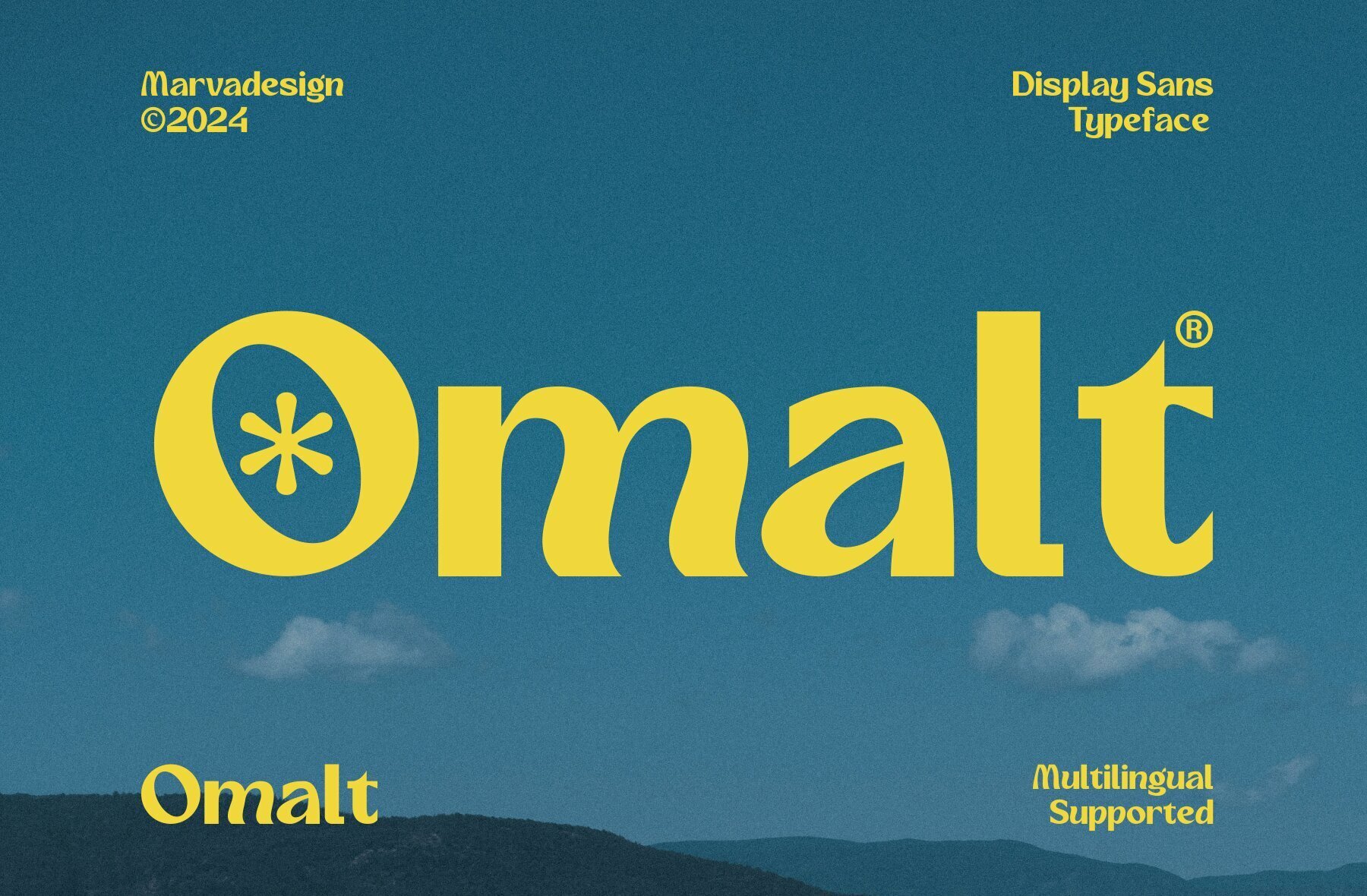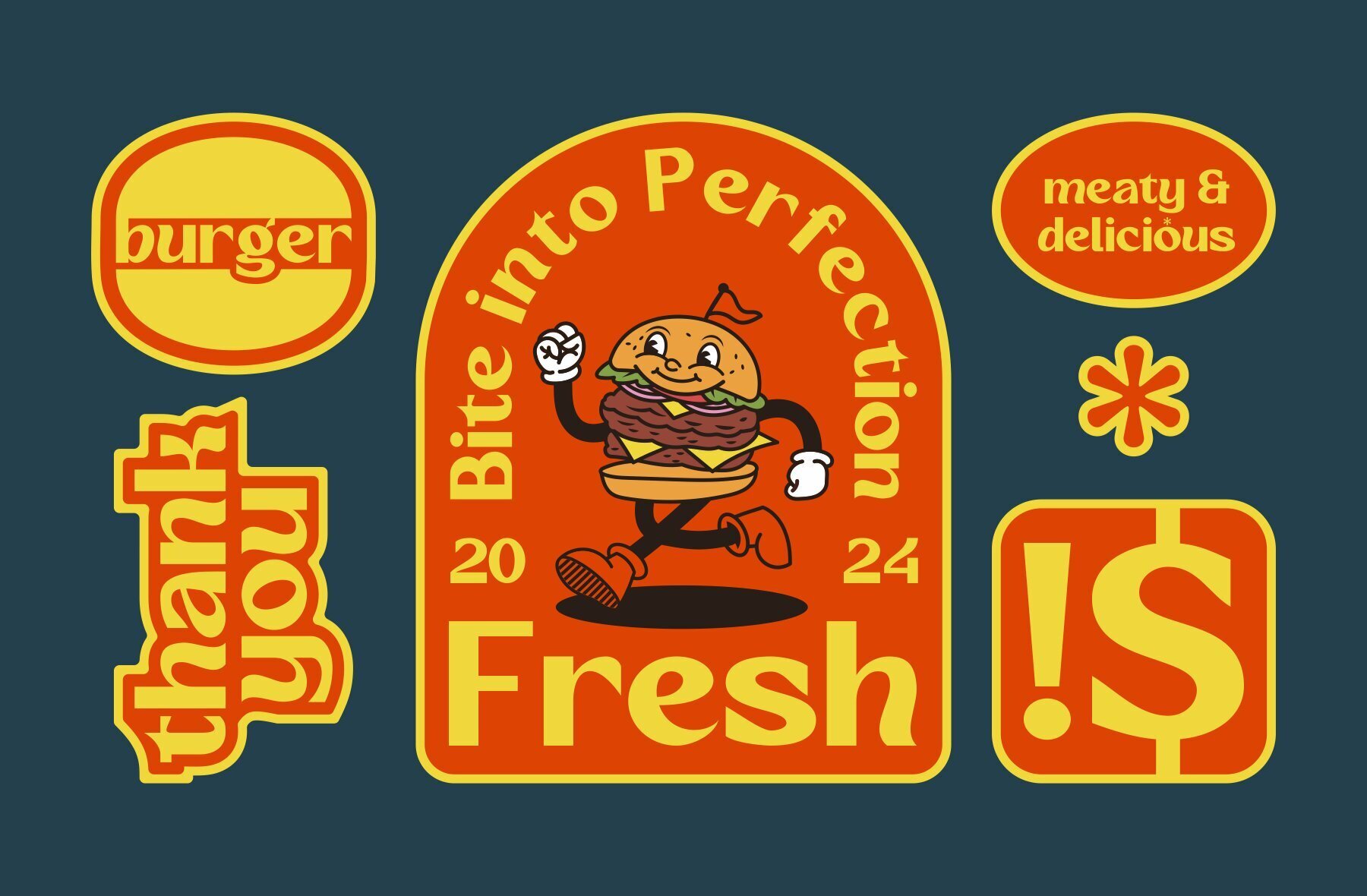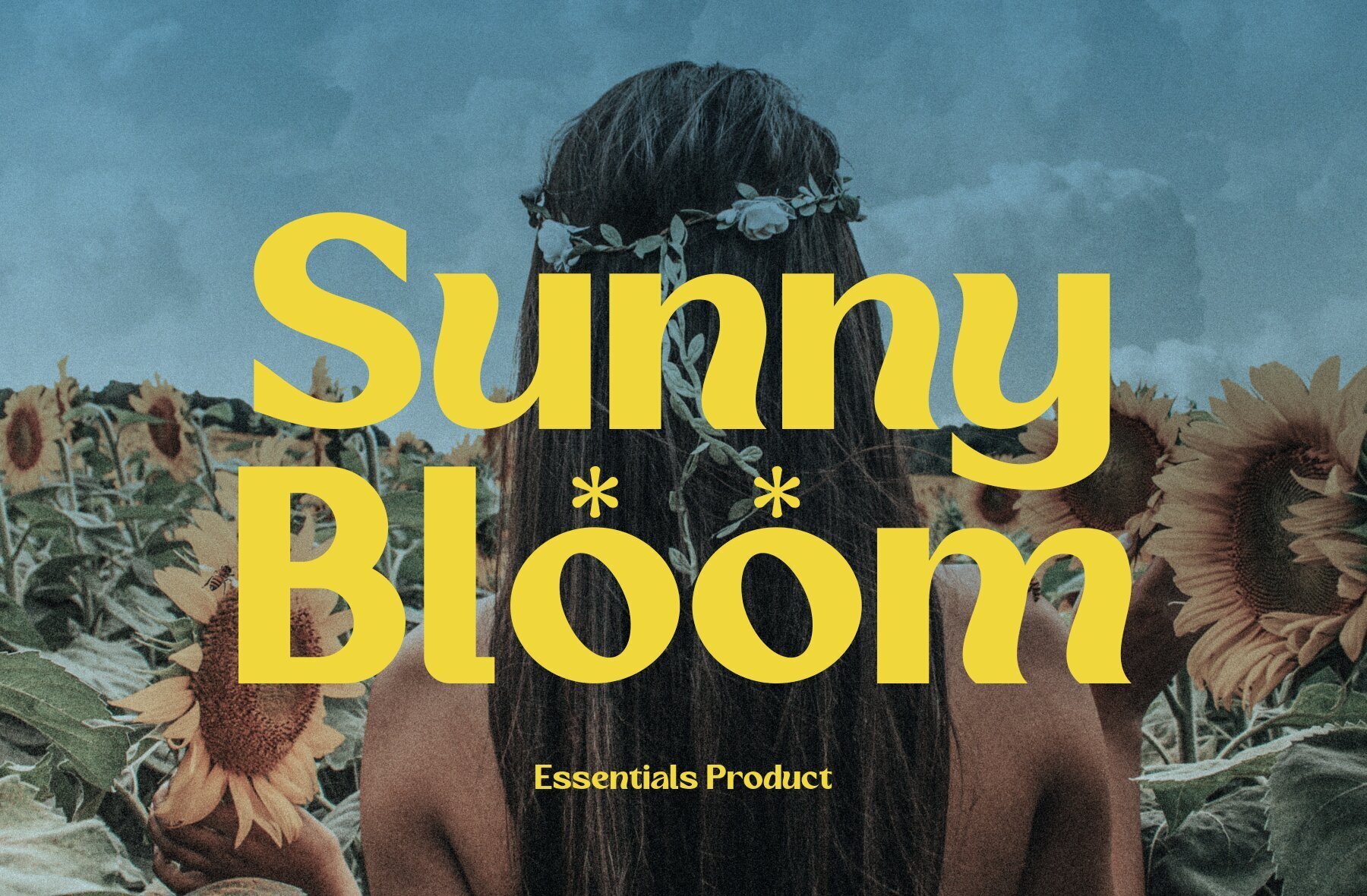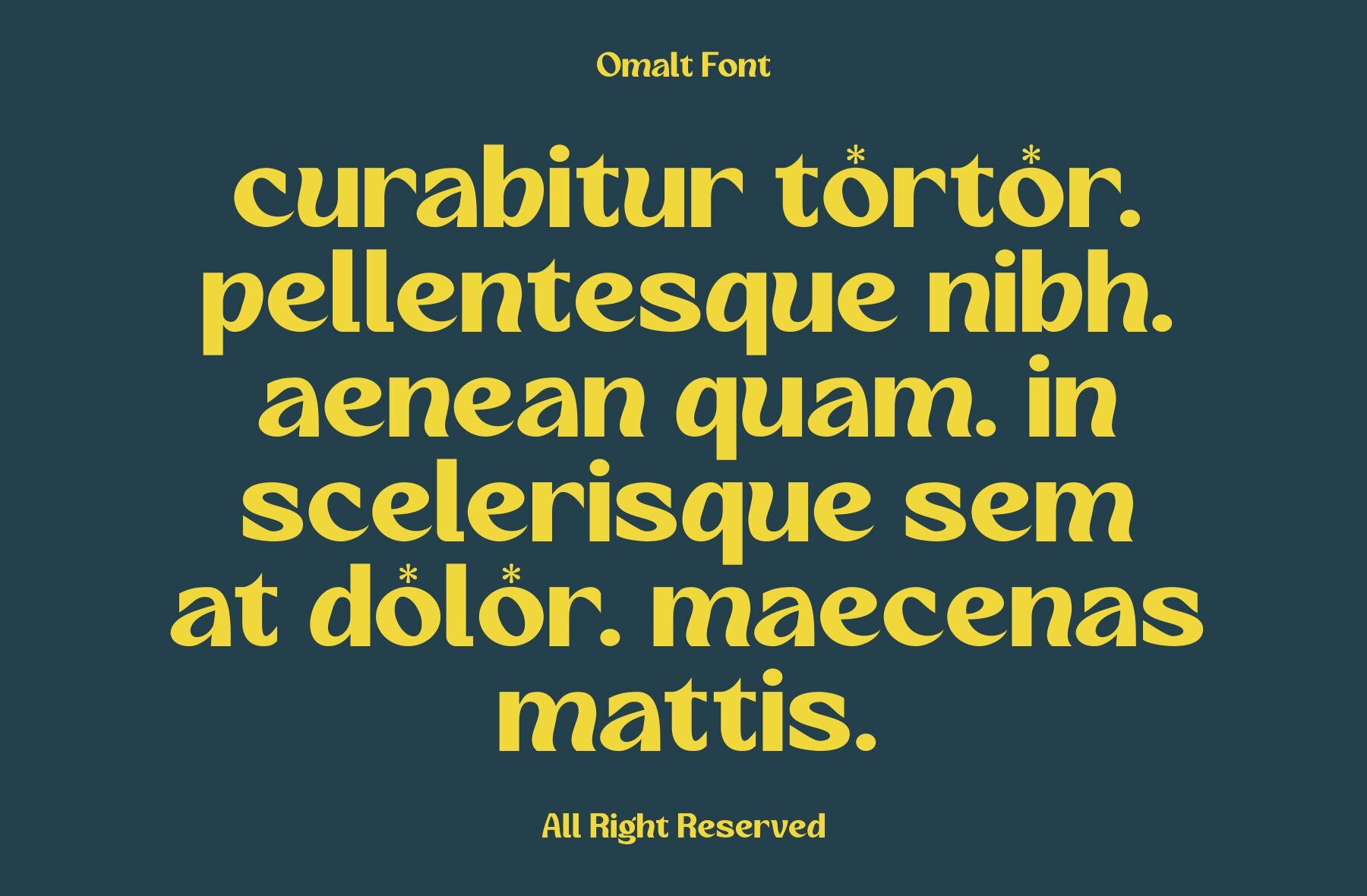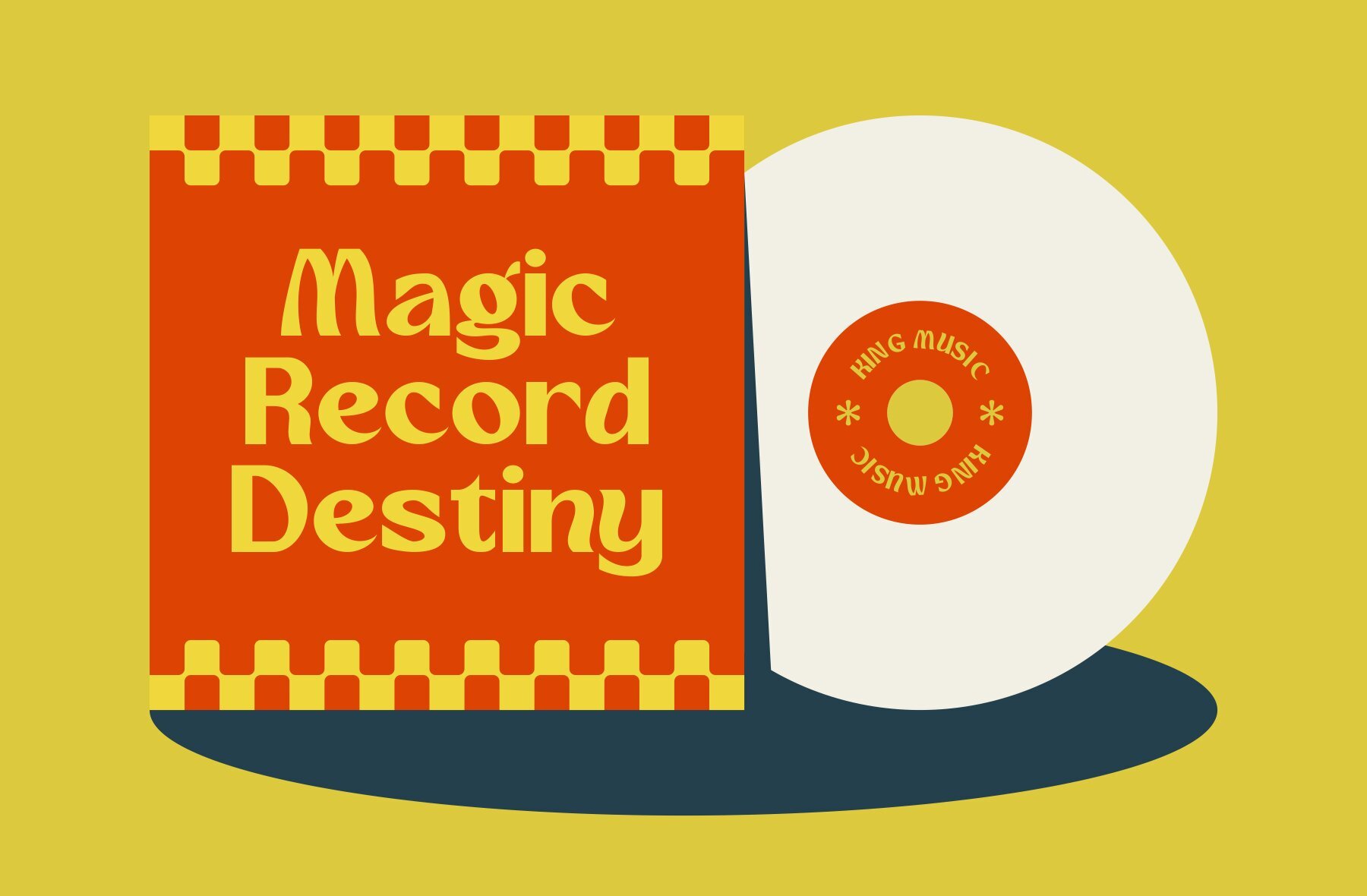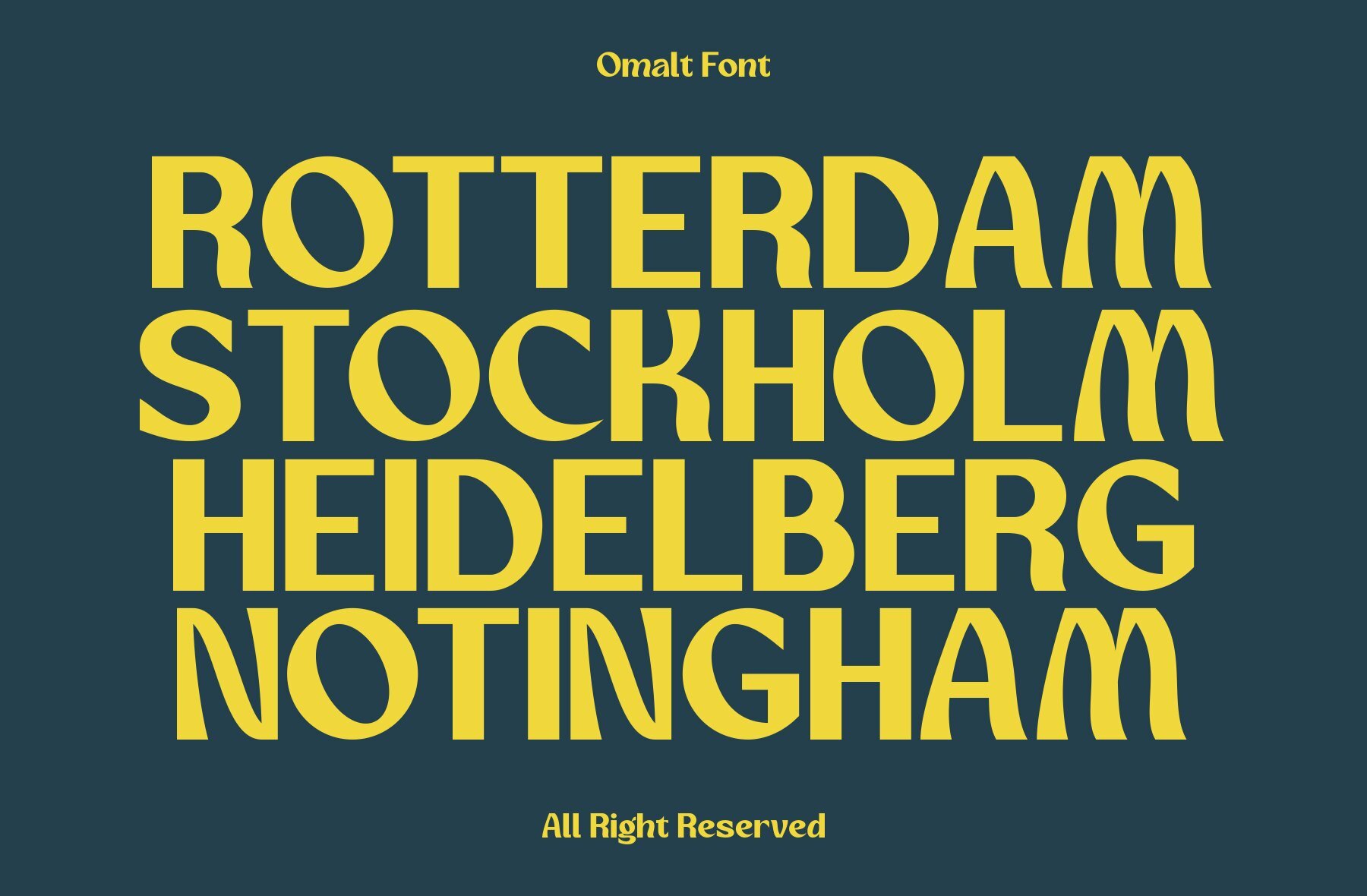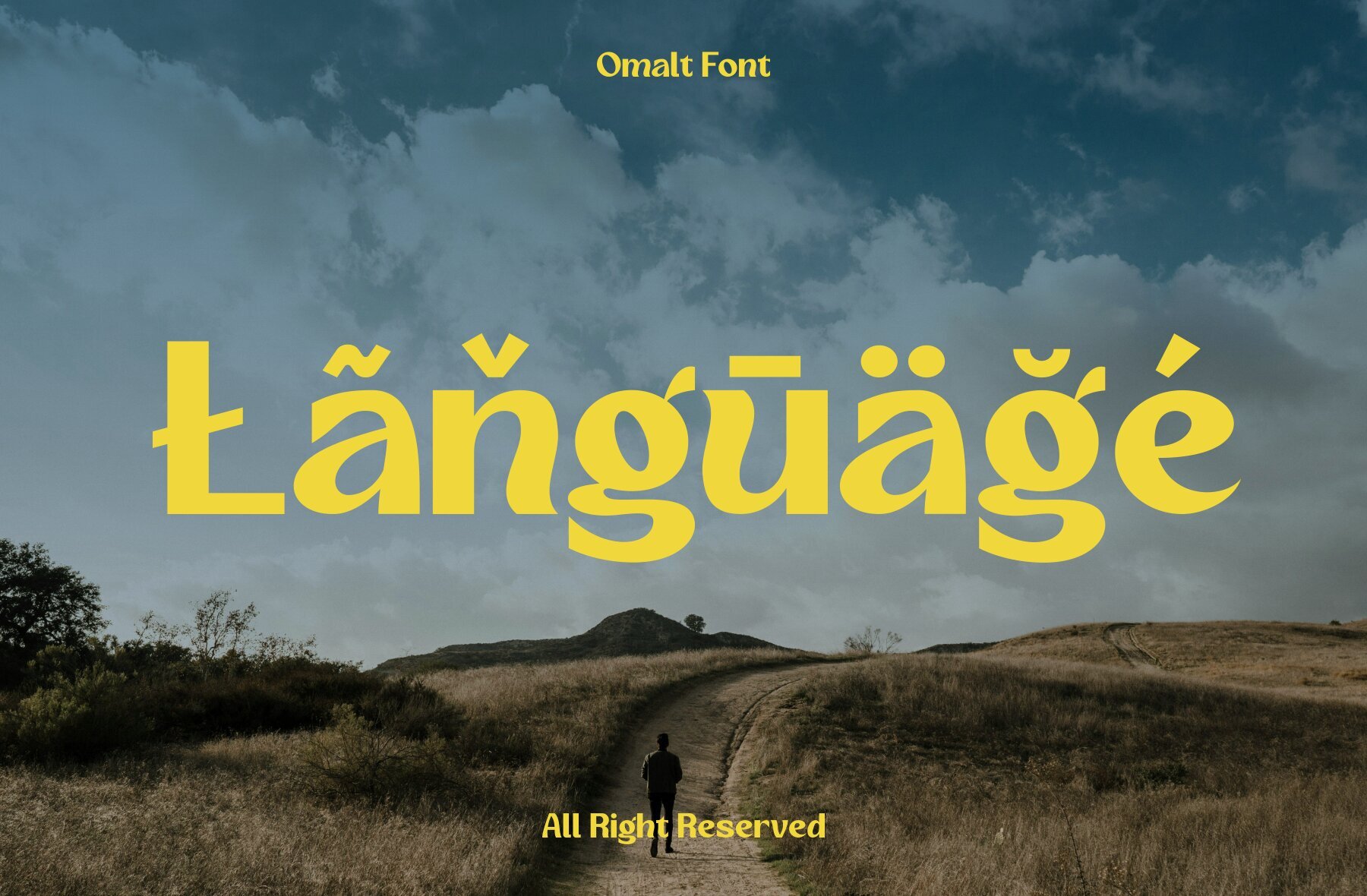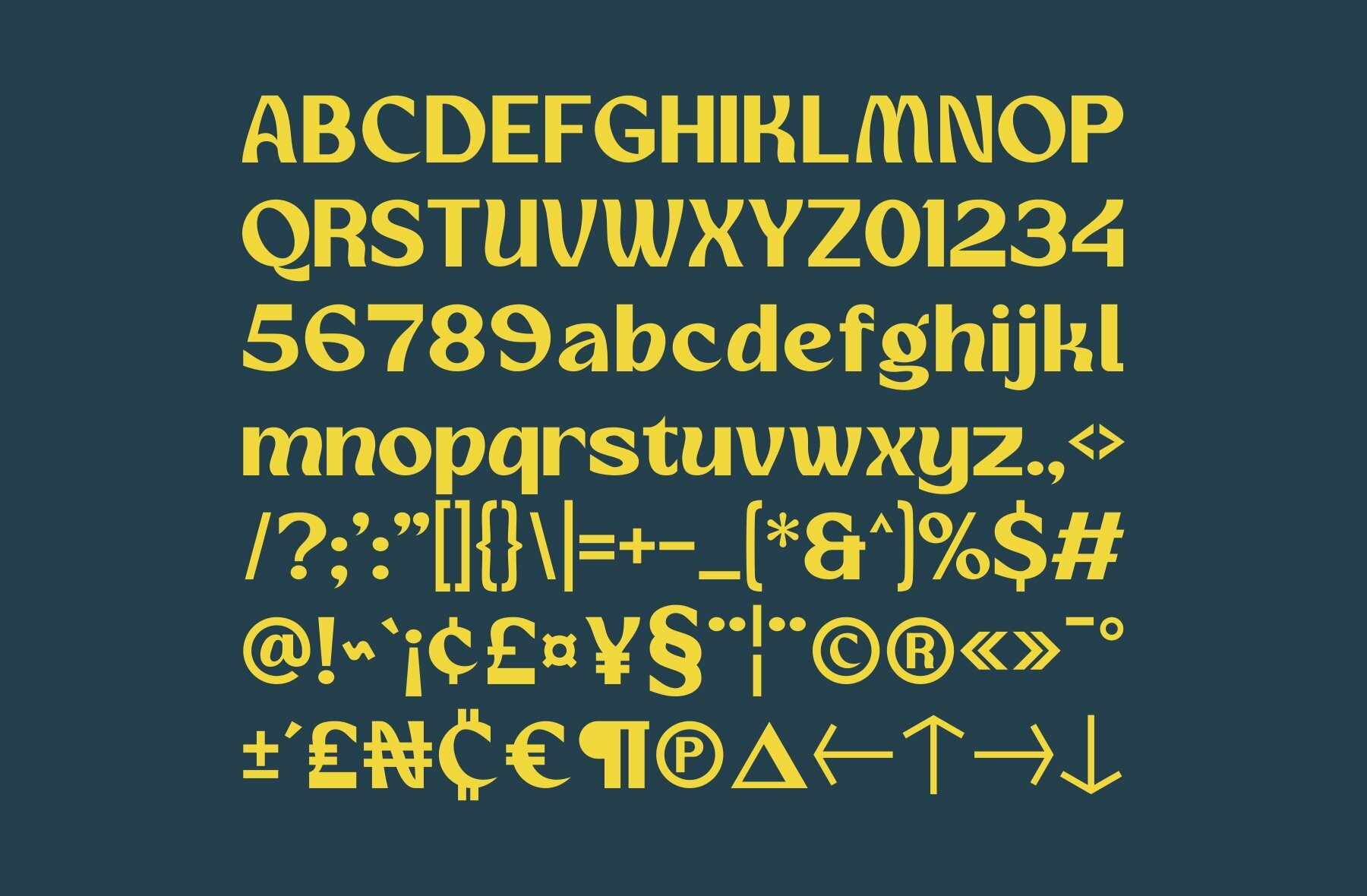
Omalt Font
Omalt Regular
Omalt is a bold, sans-serif display font featuring a distinctive wave-like design element integrated into its characters. This unique feature gives it a dynamic and playful appearance, reminiscent of ocean waves. Its boldness and striking design make it ideal for various projects where visual impact is paramount.Omalt: A Bold Sans-Serif with Wave-Like Design